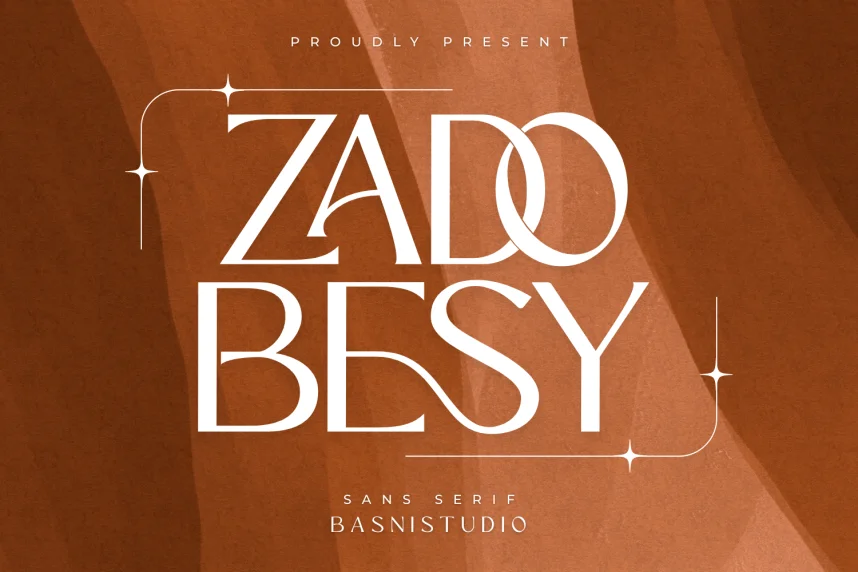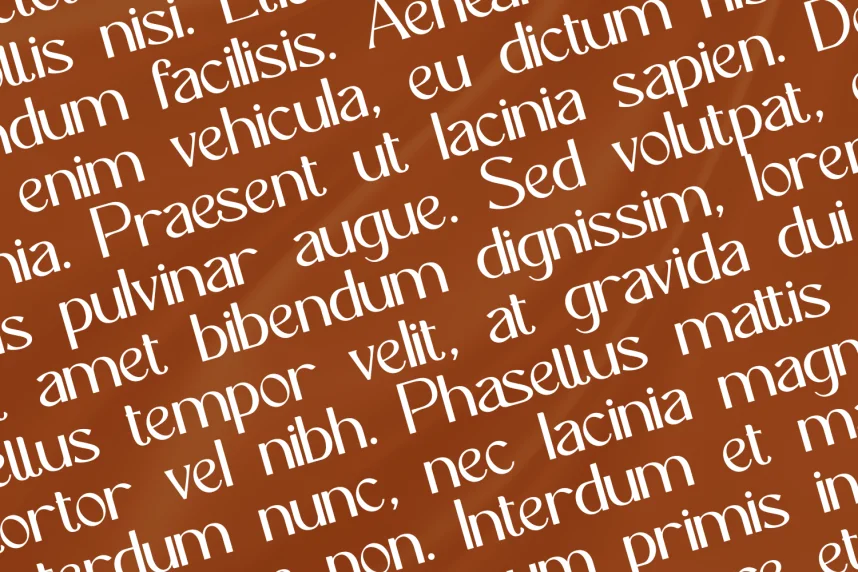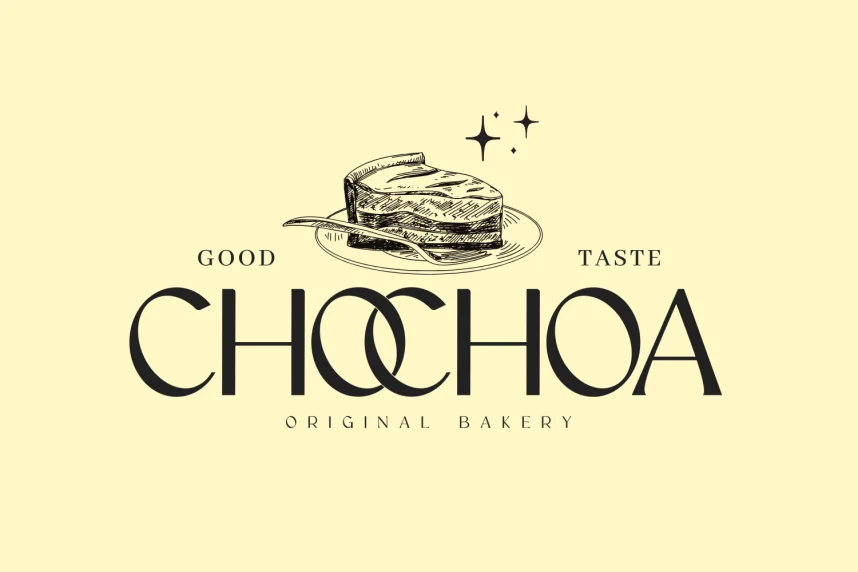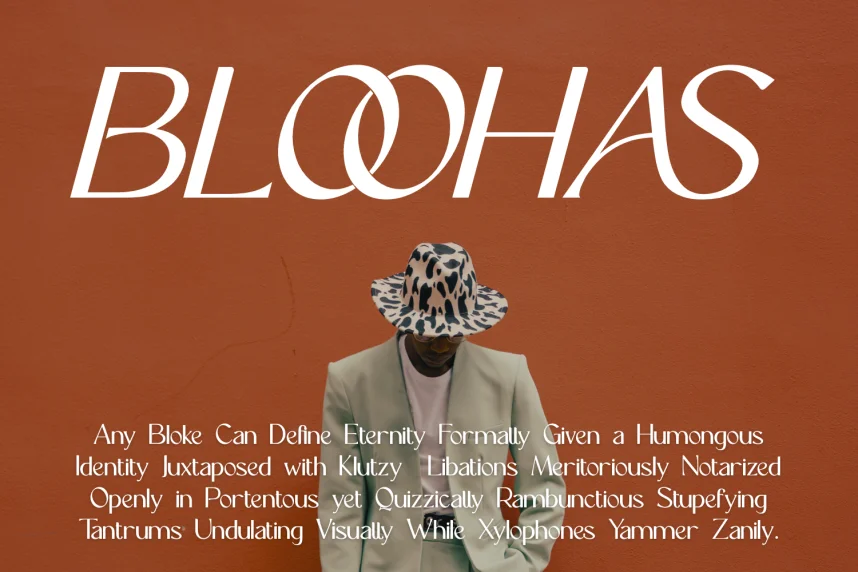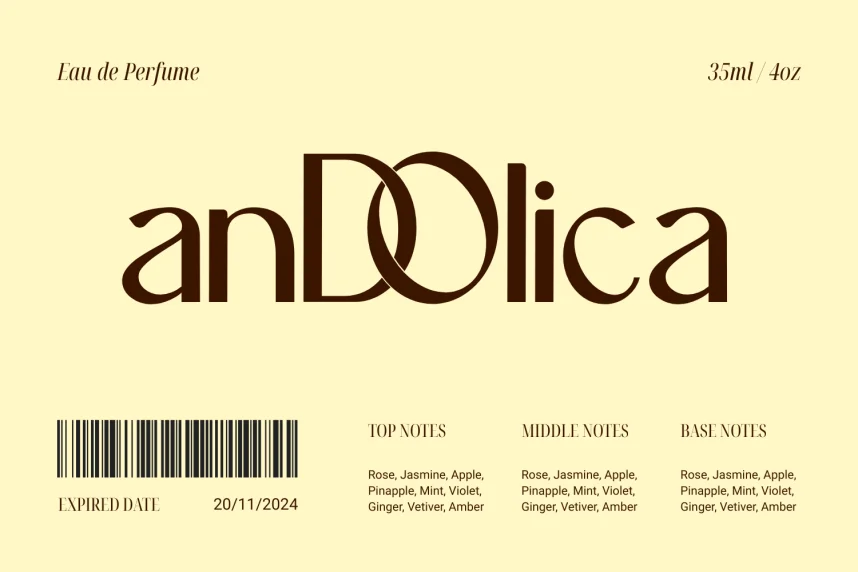
Zadobesy Font is a display typeface created to solve visibility and style issues in logos, posters, and branding graphics. Designers often need decorative lettering that stands out at large sizes without becoming unclear, especially for social media visuals, event promotions, and headline text.
Zadobesy uses bold strokes, stylized curves, and exaggerated letter shapes that give it a decorative appearance. The font has low stroke contrast and compact spacing, which keeps characters readable when used for short phrases. Its structure favors impact over long reading, making it suitable for titles and visual branding elements. The character set typically includes uppercase letters, numerals, and basic punctuation.